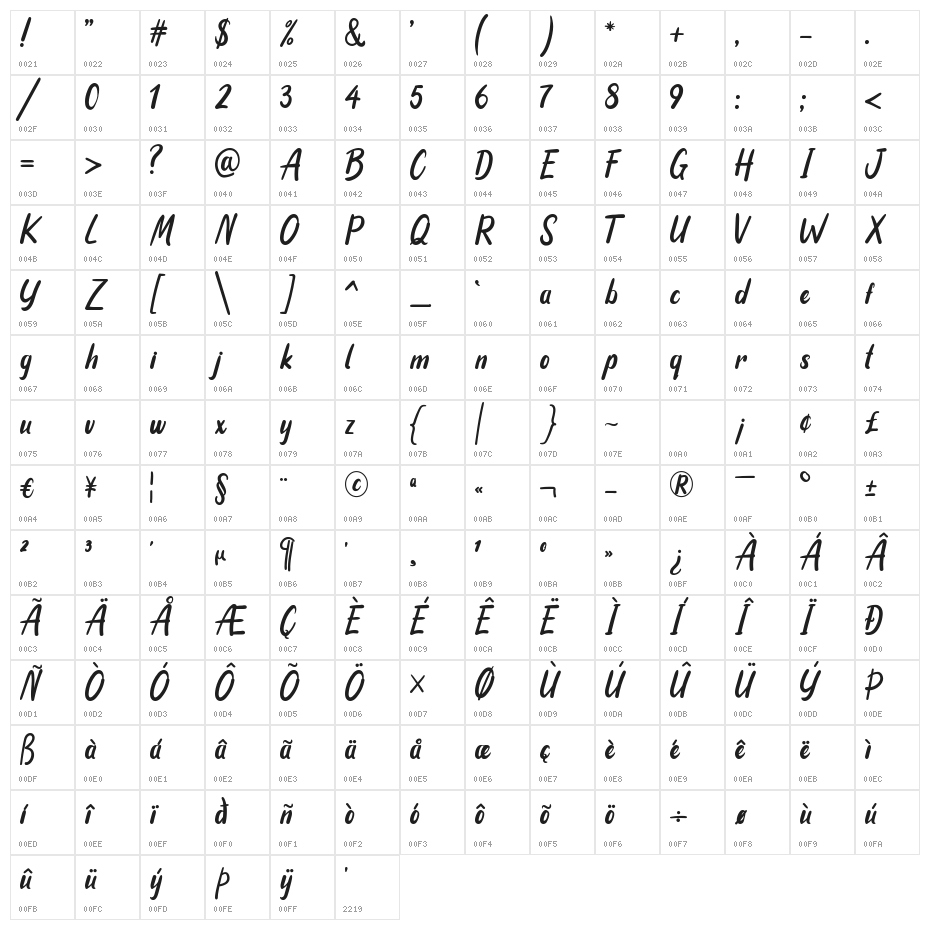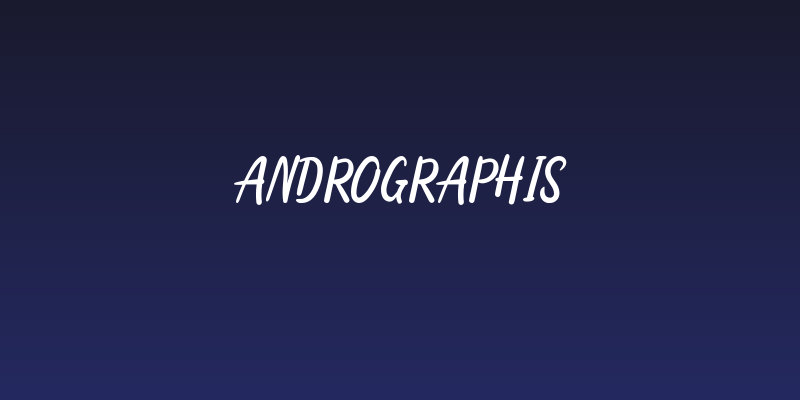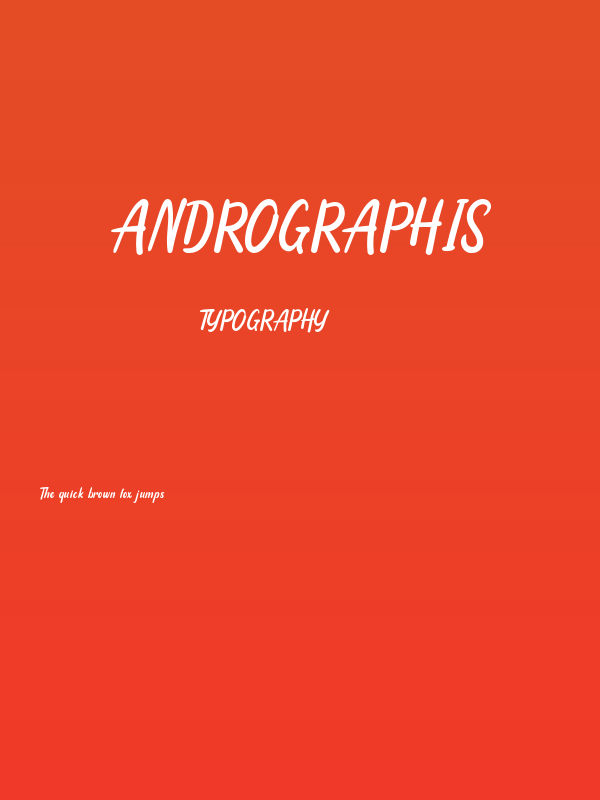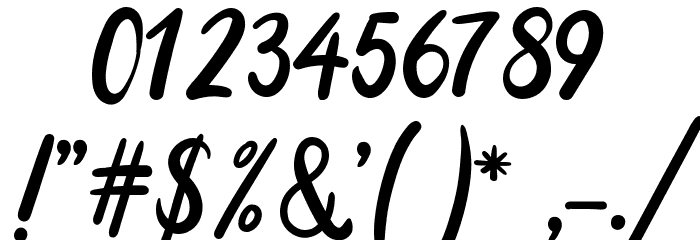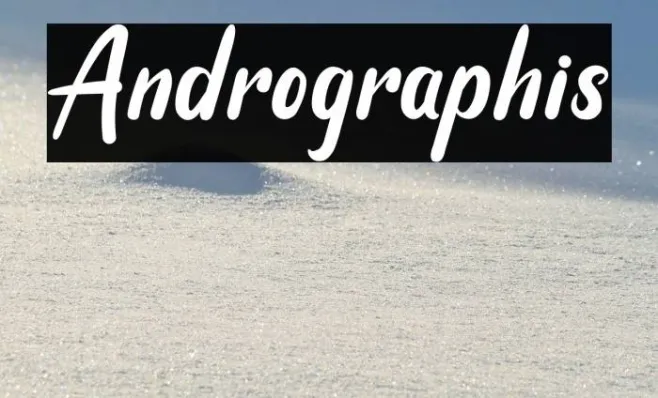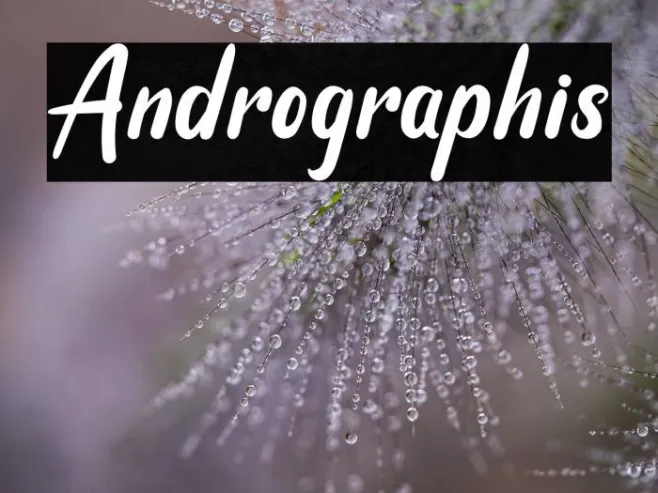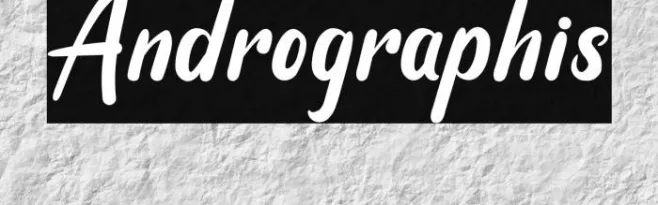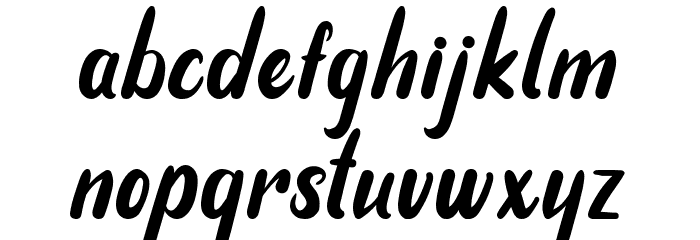
Andrographis Font
Andrographis Description
This font exudes a dynamic and energetic style with its bold, flowing script. The characters are slightly slanted, giving a sense of motion and fluidity. The uppercase letters are tall and elegant, while the lowercase letters maintain a consistent rhythm, enhancing readability. The numbers are well-proportioned, matching the overall aesthetic. Special characters are crafted with the same attention to detail, ensuring they blend seamlessly with the rest of the font. This font is ideal for projects that require a personal touch, such as invitations, branding, or any design that aims to convey elegance and creativity.
| Proposed Projects | Ideal for invitations, branding, logos, and creative design projects. |